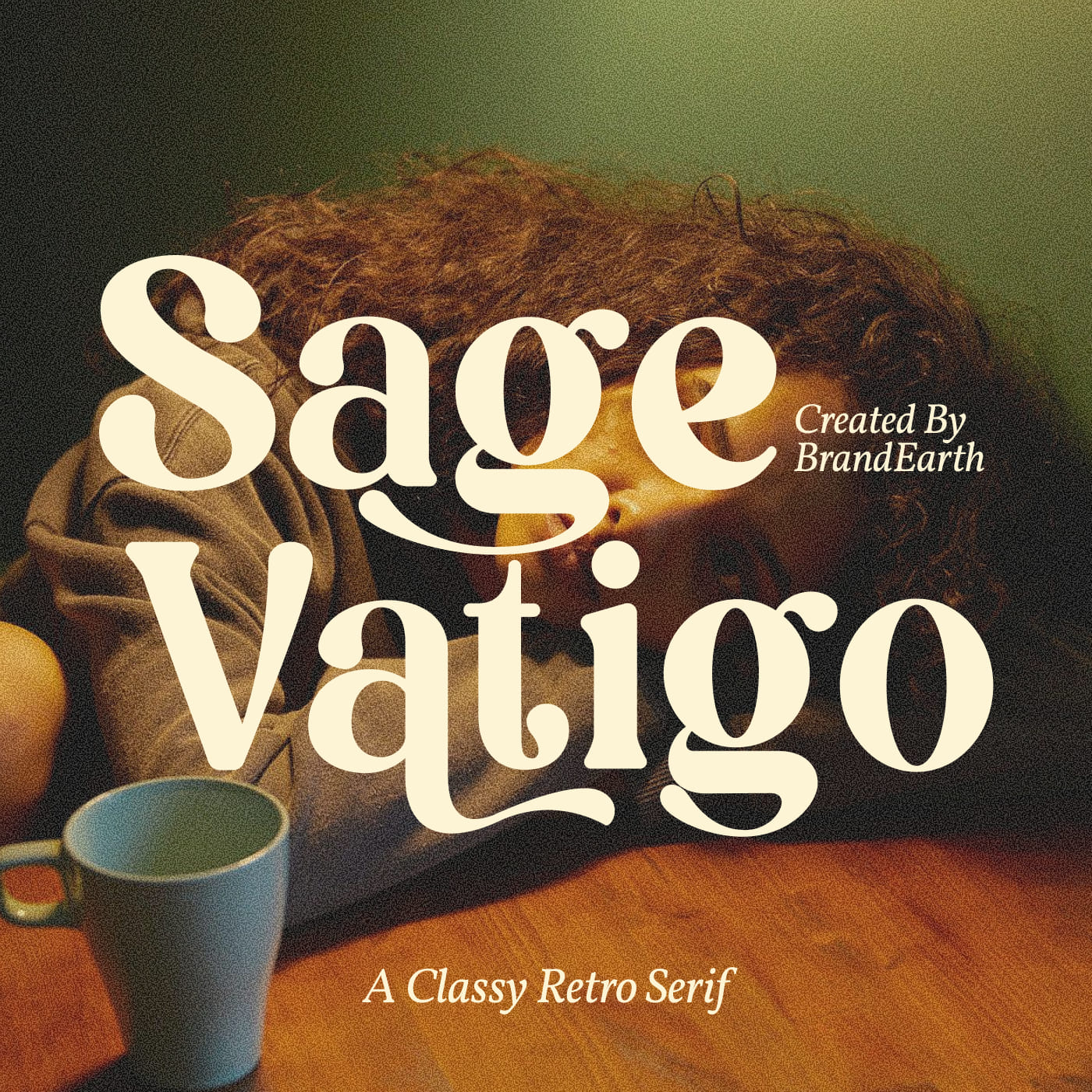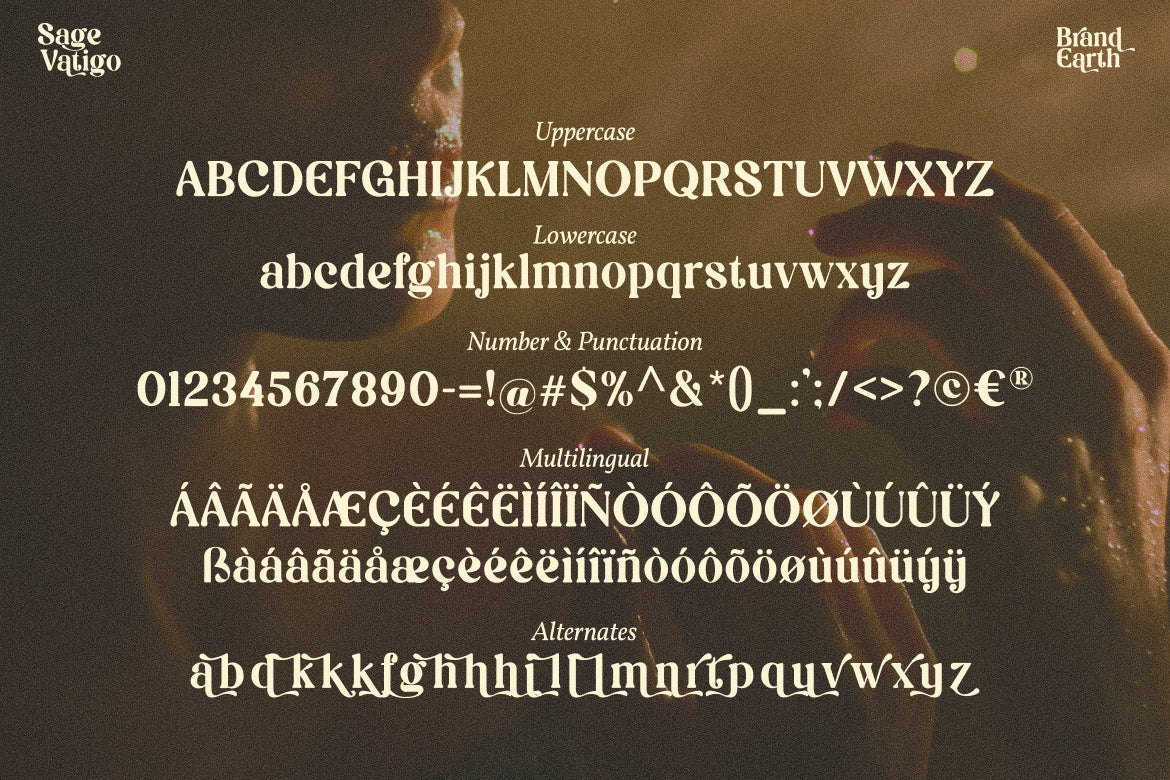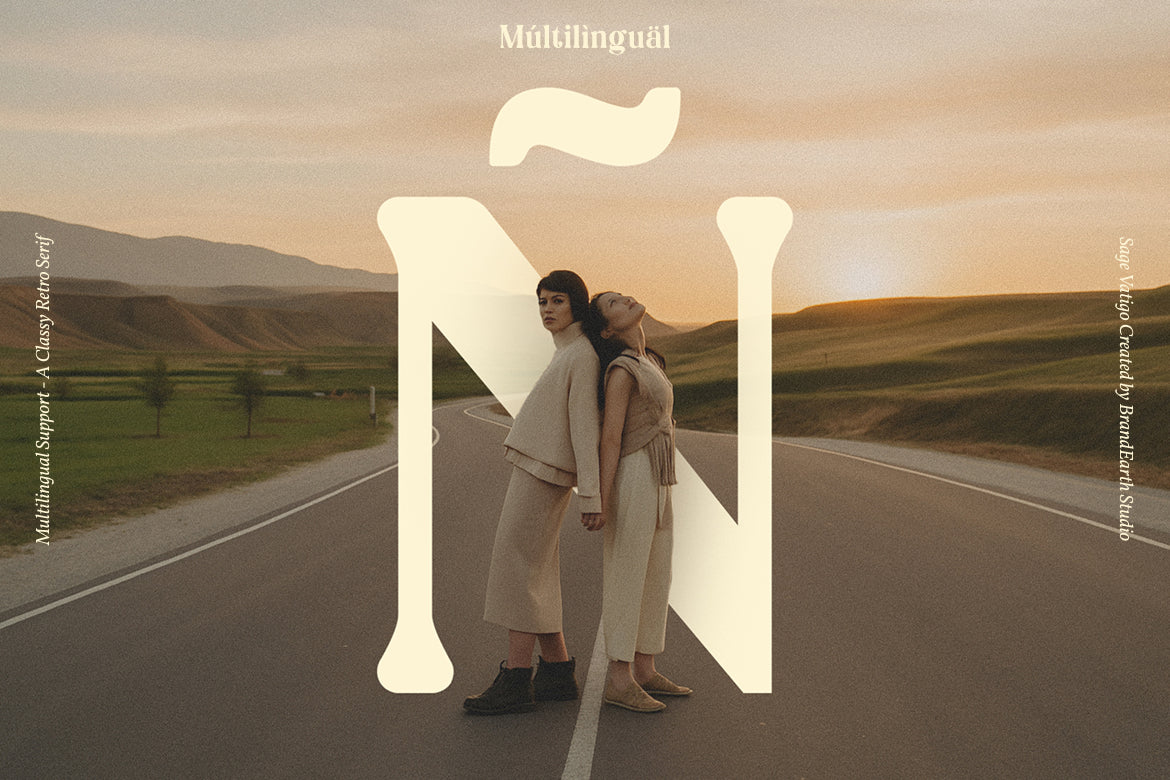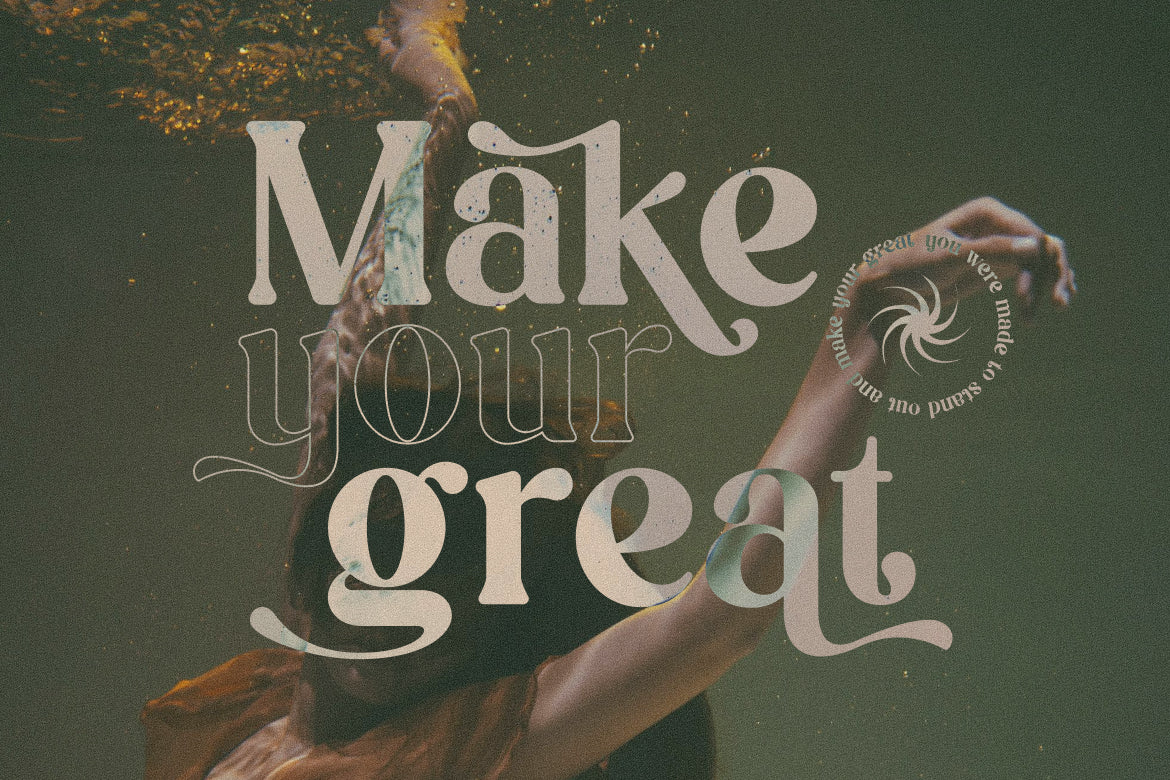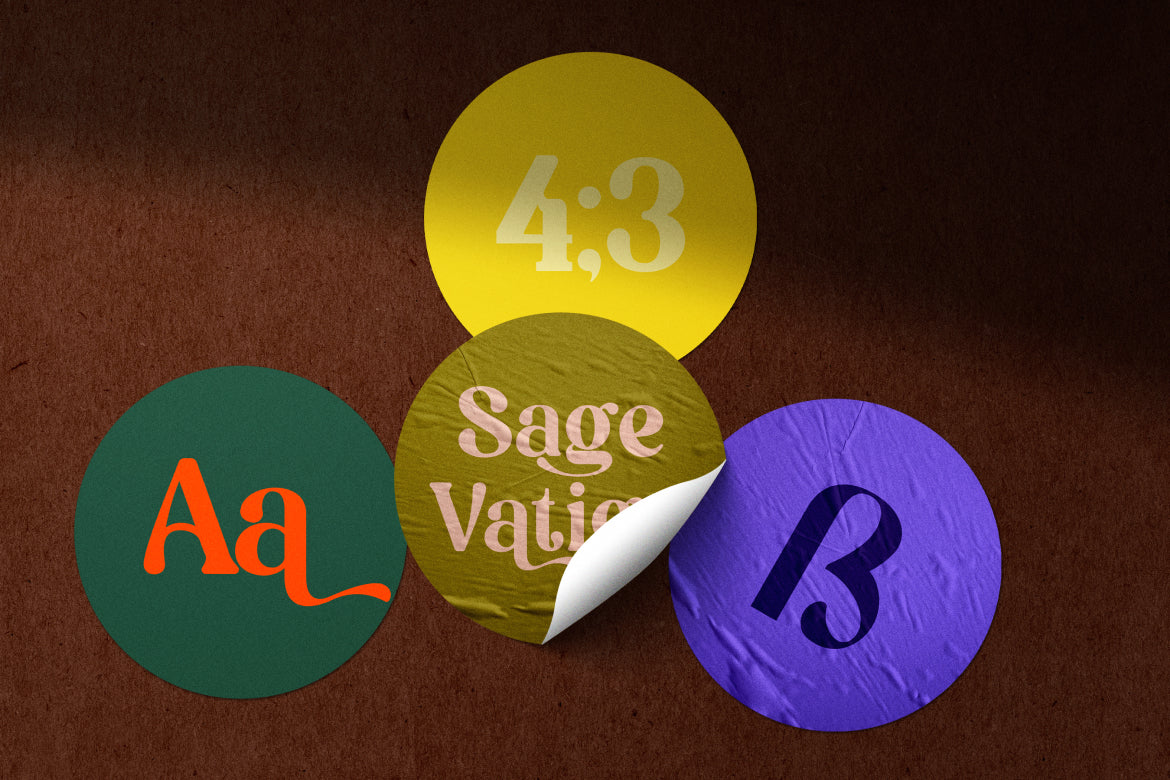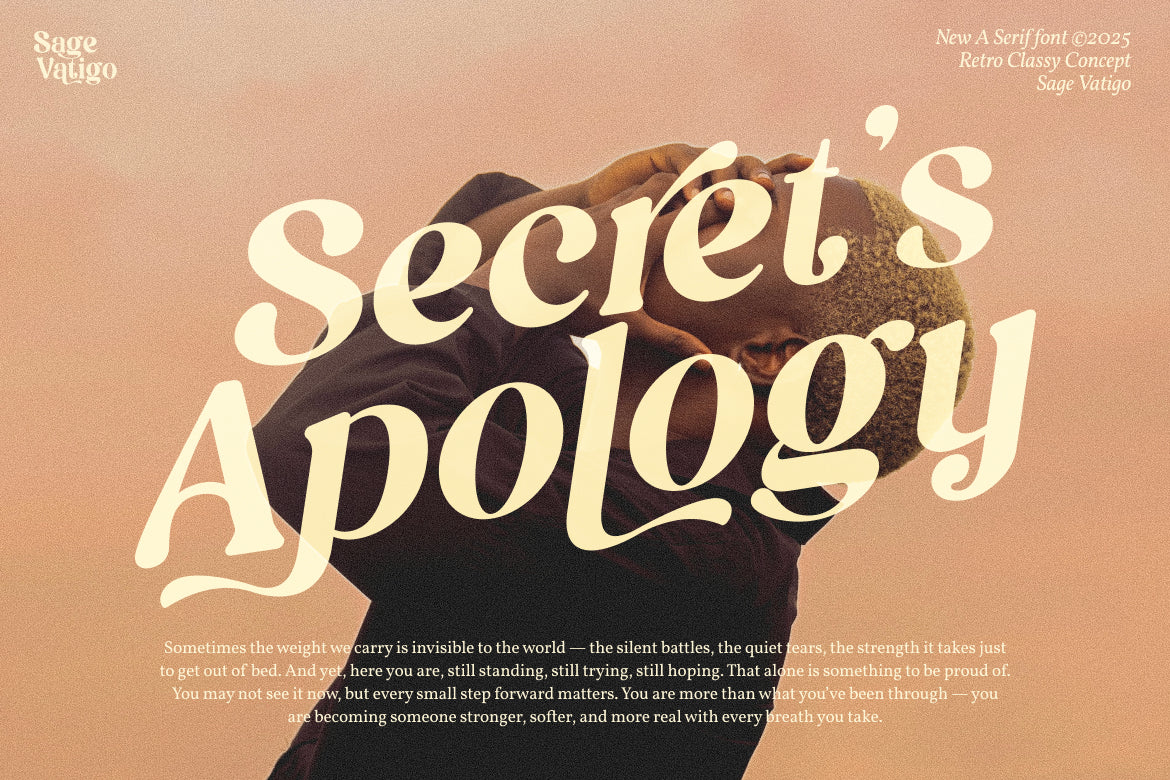
Sage Vatigo Classy Retro Serif Font
Sage Vatigo is a classy retro serif font that blends bold vintage charm with modern elegance. Inspired by 70s typography, this display serif offers dramatic curves and high contrast, making it ideal for headlines, posters, logos, branding, and editorial design. With multilingual support and stylish ligatures, Sage Vatigo captures the nostalgia of retro fonts while staying fresh and contemporary. Perfect for designers seeking a timeless typeface with strong personality and visual impact.
Sage Vatigo is a retro serif display font featuring bold, high-contrast letterforms with 70s-inspired design. It includes uppercase and lowercase characters, ligatures, alternates, numerals, punctuation, and multilingual support, available in TTF, OTF, and WOFF formats.